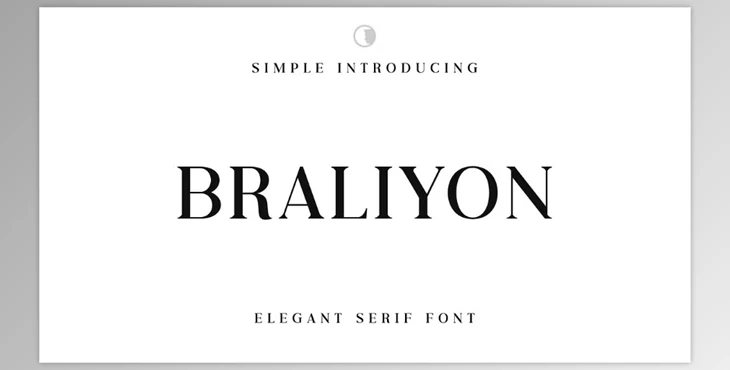
Braliyon is a sophisticated serif typeface inspired by the timeless elegance of Art Deco. It seamlessly combines vintage aesthetics with a modern, minimalist design, making it perfect for projects requiring a refined and nostalgic feel.
- Character Range: Includes uppercase and lowercase letters, punctuation, symbols, and stylistic alternates.
- Accessibility: PUA-encoded for easy access to additional styles, with multilingual support included.